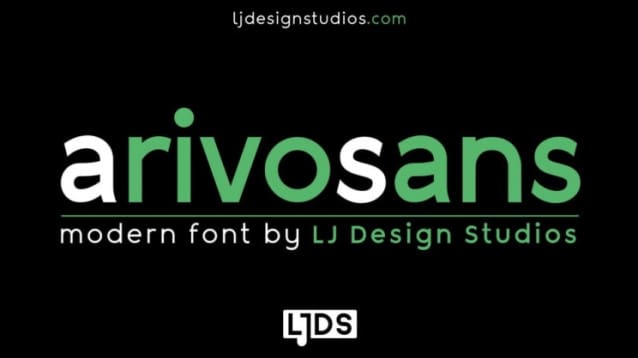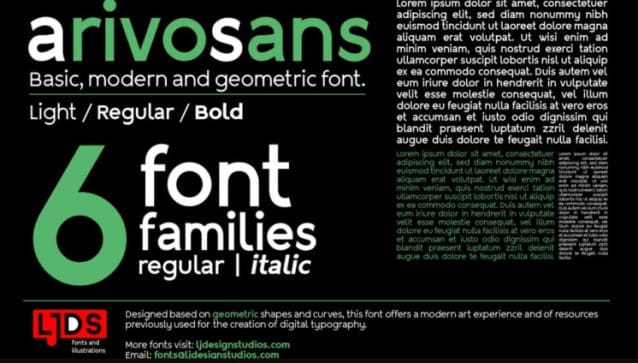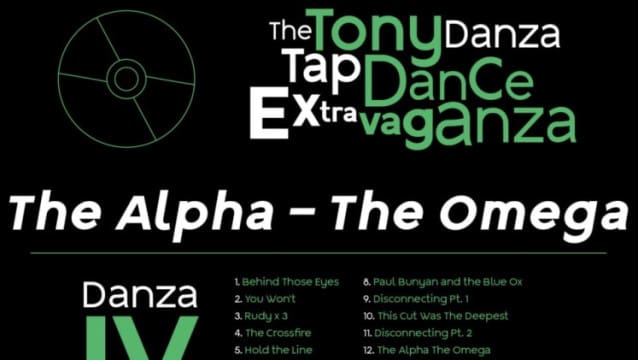
Arivo Sans Font
Arivo Sans Font is a modern geometric typeface that embodies simplicity, practicality, and a touch of understated elegance. This font is designed to be versatile, making it ideal for various design applications, compositions, and formal or clean art where a refined and contemporary aesthetic is desired.
Arivo Sans presents 6 styles: Light, Regular and Bold, accompanied by their versions in Italic. It features clean lines, balanced proportions, and straightforward geometric shapes. The letterforms are crafted to ensure readability and clarity, while the simplicity of the design allows for seamless integration into a wide range of projects.
This typeface is perfect for editorial layouts, corporate branding, and any design requiring a modern and clean appearance. Arivo Sans adapts effortlessly to different contexts, providing a reliable and aesthetically pleasing option for projects where a balance of sophistication and practicality is crucial.